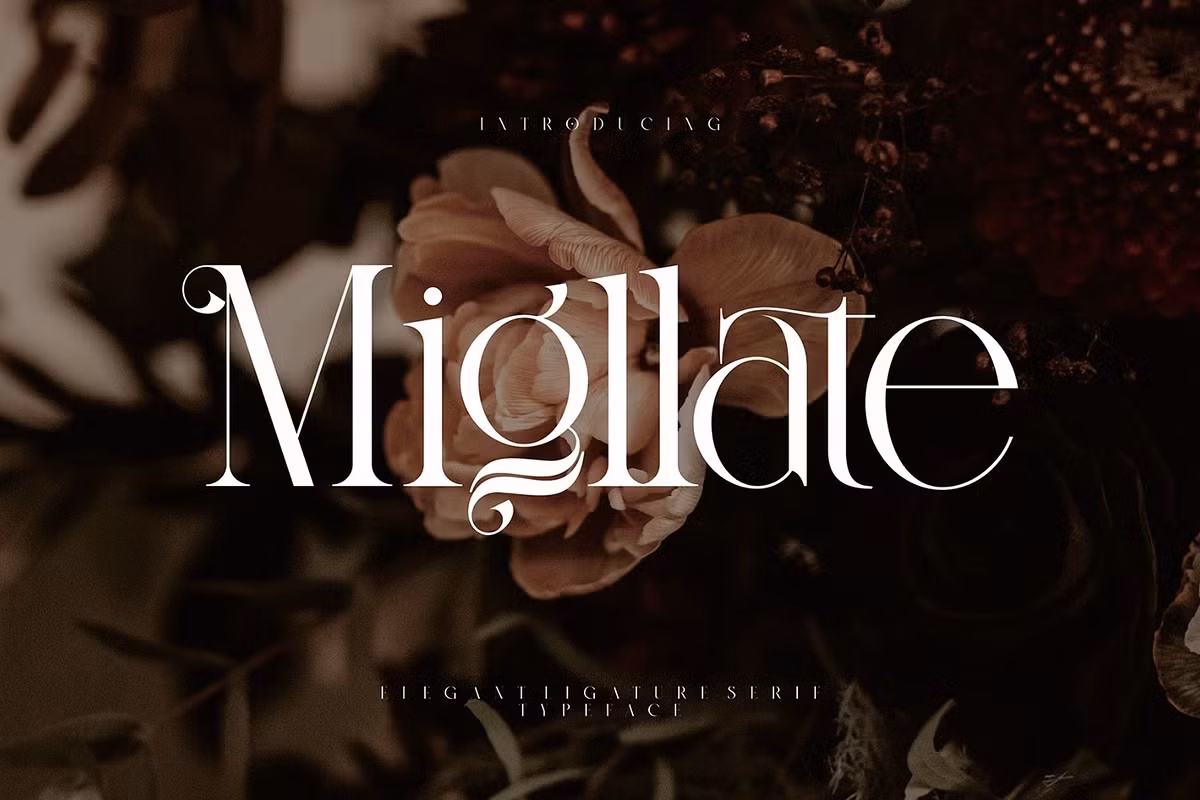
Migllate Elegant Ligature Serif Font Free Download is a luxurious and high-class typeface that features stunning ligatures and refined serif details. Designed for elegance and sophistication, Migllate is perfect for fashion branding, wedding invitations, editorial layouts, and upscale packaging that demands a graceful, premium look.
Migllate Elegant Ligature Serif Font Free Download brings timeless beauty and modern finesse together, allowing designers to create compositions that are both striking and delicate. Its stylish ligatures add a unique, flowing rhythm to your typography, making every piece feel curated and intentional. Download it today and add an elevated, elegant touch to your next creative project.